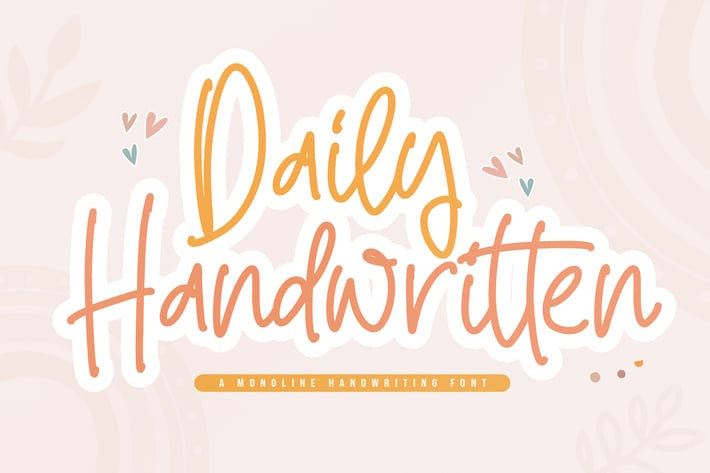
Daily Handwritten Monoline Font
Daily Handwritten Monoline Font is a charming and casual handwritten typeface with smooth monoline strokes. Its playful yet elegant style makes it versatile for both personal and professional projects, adding a warm, friendly vibe to your designs.
+ Handwritten monoline style with natural flow
+ Clean and legible for digital and print use
+ Branding & logo design
+ Social media posts & quotes
+ Posters & greeting cards
+ Wedding invitations & stationery
+ Lifestyle or personal projects
Add a touch of everyday charm to your designs with Daily Handwritten – where simplicity meets heartfelt expression.